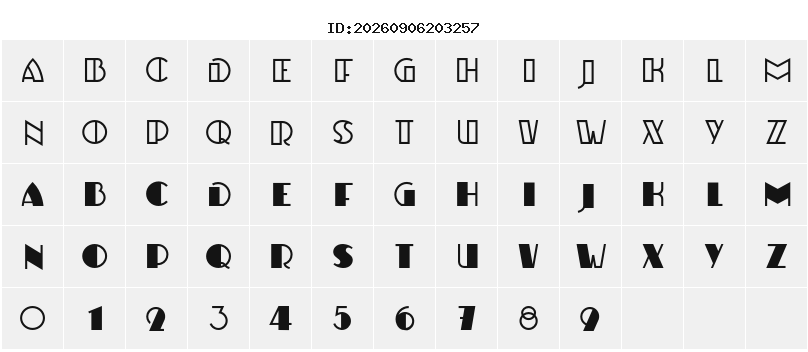
ulbricht.otf
ulbricht Preview
• Font Name: ulbricht
• Designer: Ulrich Planer
About ulbricht.otf
ulbricht.otf is a modern, elegant sans-serif font designed for ultimate readability and visual harmony. Perfect for branding, headlines, web design, and print materials.